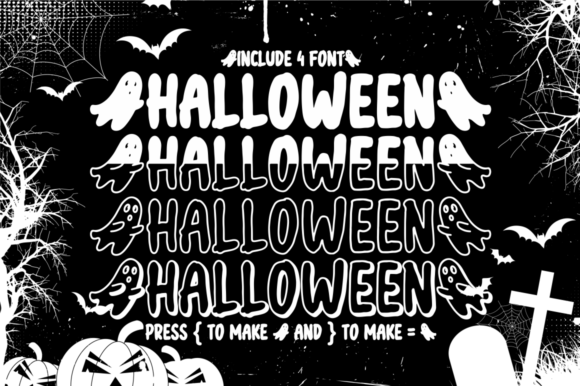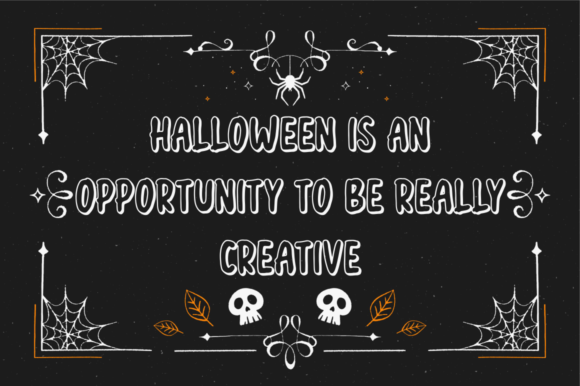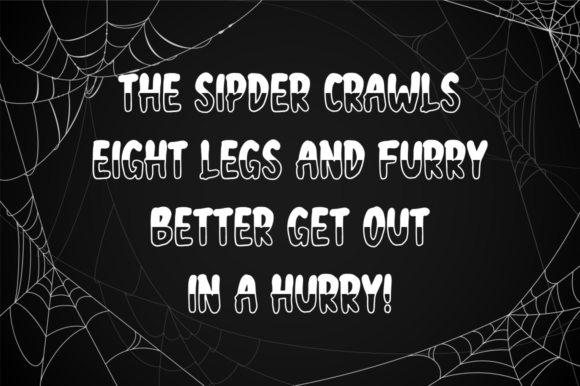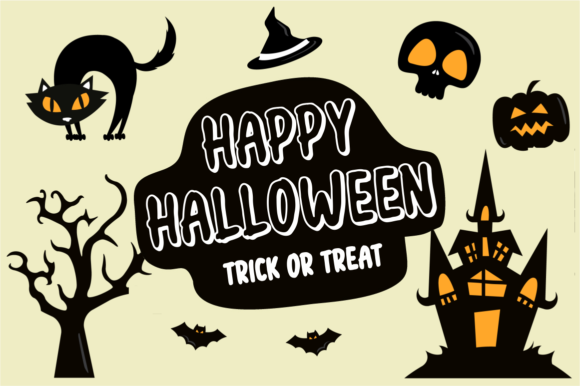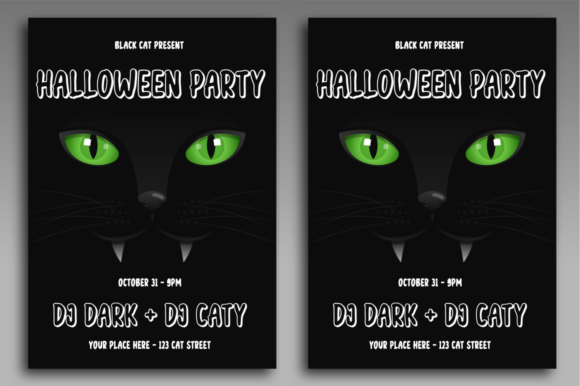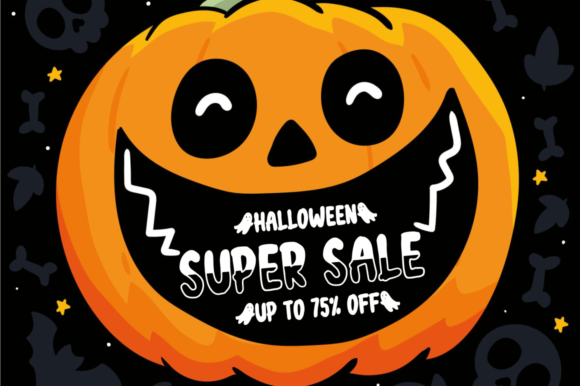
Unleash the Spoirit of Halloween with the Ultimate Halloween Font
Halloween is just around the corner, and what better way to get into the spooky spirit than with a font that’s as eerie as it is exciting? Look no further than the Halloween Font, a handcrafted display font that’s sure to take your projects to the next level!
What Makes the Halloween Font So Special?
The Halloween Font is not just any ordinary font. It’s a carefully crafted display font that features a range of Halloween-themed characters, from creepy crawlies to spooky symbols. With its unique and eye-catching design, this font is perfect for designers and crafters looking to add a touch of Halloween magic to their projects.
Halloween Font Features
• Handcrafted with love and care: Each character in the Halloween Font has been meticulously designed to ensure that it’s both visually appealing and authentic.
• Halloween-themed characters: The font features a range of spooky characters, including bats, ghosts, jack-o’-lanterns, and more.
• Perfect for display text: The Halloween Font is designed specifically for display text, making it perfect for headlines, titles, and other eye-catching applications.
Ways to Use the Halloween Font
The Halloween Font is incredibly versatile, and can be used in a variety of ways to add a touch of Halloween spirit to your projects. Here are a few ideas to get you started:
• Halloween party invitations: Create spooky and inviting party invitations that will set the tone for a howling good time.
• Costume and craft designs: Use the Halloween Font to add a touch of personality to your costume or craft designs, from t-shirts to trick-or-treat bags.
• Social media graphics: Create eye-catching social media graphics that will help you stand out from the crowd and get into the Halloween spirit.
• Halloween-themed branding: Use the Halloween Font to create spooky and memorable branding for your business or organization.
Tips for Getting the Most Out of the Halloween Font
To get the most out of the Halloween Font, here are a few tips to keep in mind:
• Experiment with different colors: The Halloween Font looks great in a range of colors, from bold and bright to dark and spooky.
• Mix and match characters: Don’t be afraid to mix and match different characters to create unique and eye-catching combinations.
• Use it sparingly: While the Halloween Font is perfect for display text, it can be overwhelming if used too much. Use it sparingly to create a bigger impact.